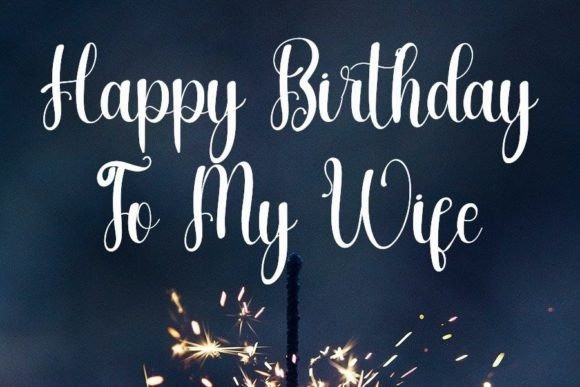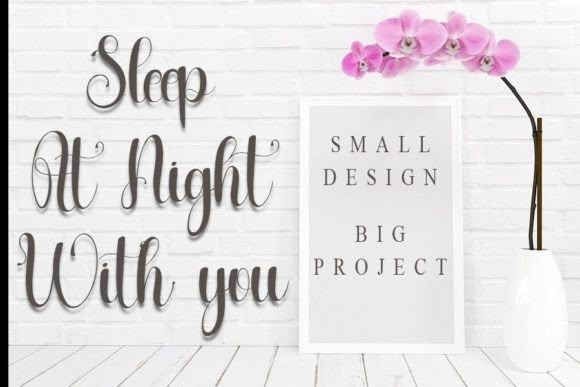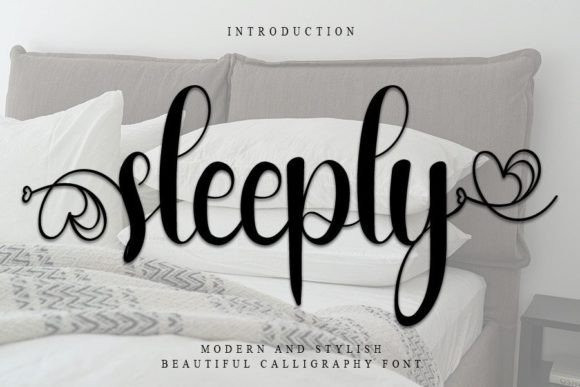
Sleeply Calligraphy Font
Sleeply Calligraphy Font is a beautiful and refined script font. It has a classy, elegant and modern look that can be used for logos, branding, invitations, stationery, wedding designs, social media posts, and much more!